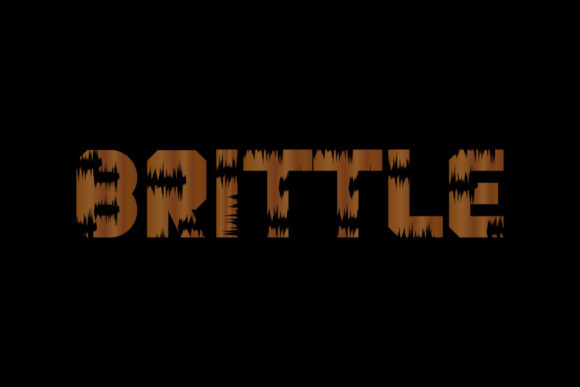
In a world of monotonous fonts, Brittle Font stands tall, a bold and sharp-dressed display font, ready to take your designs to new heights. With its electric personality, Brittle Font is more than just a font; it's a statement. Its carefully crafted characters exude a captivating charm, leaving your audience mesmerized. Dive into the realm of creativity with Brittle Font, where each letter dances with elegance, captivating hearts and inspiring minds.
Unleash the power of Brittle Font and let your creations shine brighter than ever before. Its bold strokes command attention, making your designs pop with a captivating allure. Whether you're a passionate artist, a creative designer, or anyone with a knack for making the ordinary extraordinary, Brittle Font is your perfect companion. It's more than just a font; it's an experience that ignites your imagination and leaves you craving for more.
With Brittle Font, the possibilities are endless. Its unique characteristics make it ideal for a wide range of creative endeavors, from stunning posters to eye-catching social media posts. Its versatility knows no bounds, allowing you to craft designs that speak volumes. Brittle Font is the key to unlocking your creative potential, turning your artistic vision into a captivating reality.
Prepare to be amazed as Brittle Font takes center stage, transforming your designs into masterpieces. Its bold presence will grab attention, ignite emotions, and leave a lasting impression. Brittle Font is the ultimate choice for those who dare to be different, those who seek to make a statement with their creativity. Embrace the power of Brittle Font and embark on a journey where your designs take on a new life, leaving your audience in awe.